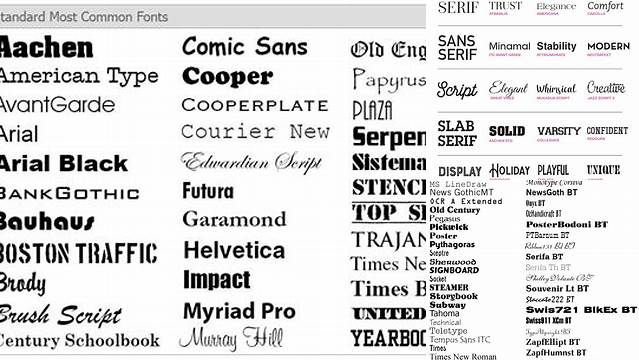
View Text In All Fonts: Your Ultimate Font Guide
1. Understanding Font Basics
Before we get into the nitty-gritty of seeing text in all fonts, let's cover the basics. What exactly is a font? Well, it's a set of glyphs (characters) designed with a specific style. Think of it as a family of letters, numbers, and symbols that share a common visual appearance. Fonts come in various types, including serif, sans-serif, monospace, script, and decorative. Each type has its own distinct characteristics and is suitable for different purposes. For instance, serif fonts, like Times New Roman, are often used in print because they're easy to read in large blocks of text. Sans-serif fonts, like Arial, are commonly used on screens because they tend to appear cleaner. Understanding these basics is crucial for appreciating the nuances of typography and seeing text in all fonts effectively. The history of fonts is rich and dates back to the invention of the printing press. Over the centuries, countless fonts have been created, each with its own unique story and purpose. Today, we have access to thousands of fonts, thanks to digital technology. This abundance of choice can be both a blessing and a curse. It's great to have options, but it can also be overwhelming to choose the right font for your project. That's where understanding the basics comes in handy. Knowing the different types of fonts and their characteristics will help you make informed decisions and see text in all fonts in a way that enhances your message. Ultimately, the goal is to choose a font that is both visually appealing and easy to read. This requires a careful consideration of factors such as the target audience, the medium, and the overall design aesthetic. So, take the time to learn about fonts, experiment with different styles, and develop your own personal taste. You'll be amazed at how much of a difference the right font can make.
5. Web Fonts: Google Fonts and Adobe Fonts
When it comes to web design, seeing text in all fonts requires a different approach. You can't just assume that your users have the same fonts installed on their computers as you do. That's where web fonts come in. Services like Google Fonts and Adobe Fonts (formerly Typekit) allow you to embed fonts directly into your website, ensuring that everyone see text in all fonts the way you intended. Google Fonts is a free service that offers a wide variety of open-source fonts. Adobe Fonts is a subscription-based service that provides access to thousands of high-quality fonts. To use web fonts, you typically add a link to the font's stylesheet in your website's HTML code. This tells the browser to download the font from the web server and use it to render the text on the page. It's important to choose web fonts carefully, as they can impact your website's performance. Large font files can slow down your website's loading time, which can negatively affect the user experience. So, it's best to use only the fonts you need and to optimize them for the web. In addition to Google Fonts and Adobe Fonts, there are also other web font services available, such as Font Squirrel and MyFonts. These services offer a variety of fonts, both free and paid, and they provide tools to help you optimize your fonts for the web. Ultimately, the key to seeing text in all fonts on the web is to use web fonts. This ensures that everyone see text in all fonts the way you intended, regardless of whether they have the font installed on their computer. Just be sure to choose your fonts carefully and optimize them for the web to avoid slowing down your website's loading time.
6. Using CSS to Style Text
CSS (Cascading Style Sheets) is your best friend when you want to see text in all fonts with style on the web. It allows you to control the appearance of your text, including the font family, size, color, and spacing. To specify a font in CSS, you use the font-family property. You can list multiple fonts as fallbacks in case the user's browser doesn't support the first font. For example:
body {
font-family: "Arial", "Helvetica", sans-serif;
}
This tells the browser to use Arial if it's available, otherwise use Helvetica, and if neither is available, use a generic sans-serif font. In addition to font-family, CSS also provides other properties for styling text, such as font-size, font-weight, font-style, and text-decoration. These properties allow you to control the size, weight, style, and decoration of your text, respectively. For example:
h1 {
font-size: 3em;
font-weight: bold;
font-style: italic;
text-decoration: underline;
}
This tells the browser to display all <h1> elements with a font size of 3em, a bold font weight, an italic font style, and an underline decoration. CSS also allows you to use web fonts, as discussed in the previous section. To use a web font in CSS, you first need to link to the font's stylesheet in your website's HTML code. Then, you can specify the font in your CSS using the font-family property. For example:
body {
font-family: "Open Sans", sans-serif;
}
This tells the browser to use the Open Sans font for all text on the page. Ultimately, CSS is an essential tool for seeing text in all fonts with style on the web. It allows you to control the appearance of your text and ensure that it looks the way you intended, regardless of the user's browser or operating system. Just be sure to use CSS properly and follow best practices to avoid creating a mess of code.
7. Troubleshooting Font Display Issues
Sometimes, even when you think you've done everything right, you might still encounter issues when trying to see text in all fonts. Common problems include fonts not displaying correctly, fonts appearing pixelated, or fonts not rendering at all. The first step in troubleshooting font display issues is to make sure that the font is properly installed on your system. If you're using a web font, make sure that the link to the font's stylesheet is correct and that the font file is accessible. If the font is installed correctly, the next step is to check your CSS code. Make sure that you're using the correct font-family name and that there are no typos or syntax errors in your code. It's also worth checking for font conflicts. Sometimes, two or more fonts can conflict with each other, causing display issues. To resolve font conflicts, try deactivating one of the conflicting fonts or changing the order in which they're listed in your CSS code. Another common cause of font display issues is caching. Sometimes, your browser or operating system may cache an old version of the font file, causing the font to display incorrectly. To clear the cache, try restarting your browser or clearing your browser's cache. If you're still having trouble seeing text in all fonts, it's worth checking your system's font settings. Make sure that your system is configured to use the correct font rendering settings and that there are no font smoothing or anti-aliasing issues. Ultimately, troubleshooting font display issues can be a frustrating process, but it's important to be patient and methodical. By following these steps, you should be able to identify and resolve most font display issues and see text in all fonts the way you intended.
8. Font Licensing and Usage Rights
Before you go wild seeing text in all fonts everywhere, it's crucial to understand font licensing and usage rights. Fonts are intellectual property, and they're typically protected by copyright. This means that you need a license to use a font legally. Font licenses vary depending on the font foundry and the type of usage. Some licenses are free for personal use but require a fee for commercial use. Other licenses allow you to use the font for any purpose, but they may restrict the number of users or the number of devices on which the font can be installed. It's important to read the font license carefully before using a font to make sure that you're complying with the terms of the license. Using a font without a proper license can result in legal trouble, including fines and lawsuits. In addition to copyright, fonts may also be protected by trademarks. A trademark is a symbol, design, or phrase legally registered to represent a company or product. If a font is trademarked, you may need to obtain permission from the trademark owner before using the font in a way that could infringe on the trademark. Ultimately, understanding font licensing and usage rights is essential for seeing text in all fonts legally and ethically. Always read the font license carefully before using a font, and make sure that you're complying with the terms of the license. If you're unsure about the terms of a font license, it's best to contact the font foundry or a legal professional for clarification.
9. Font Pairing: Tips and Best Practices
Choosing the right font is important, but seeing text in all fonts beautifully often means pairing fonts effectively. Font pairing is the art of combining two or more fonts that complement each other and create a visually appealing design. A good font pairing can enhance the readability of your text, create a sense of harmony and balance, and convey the right mood and message. There are many different approaches to font pairing, but some common tips and best practices include: Use a serif font for headings and a sans-serif font for body text, or vice versa. This creates a visual contrast that can make your text more readable. Choose fonts that have similar x-heights. The x-height is the height of the lowercase letter "x" in a font. Fonts with similar x-heights tend to look more harmonious when paired together. Use fonts from the same font family. Font families often include a variety of weights and styles that can be used together to create a cohesive design. Don't be afraid to experiment with different font pairings, but always make sure that the fonts you choose complement each other and create a visually appealing design. Ultimately, font pairing is a subjective process, but by following these tips and best practices, you can see text in all fonts in a way that is both visually appealing and easy to read. Just remember to experiment, have fun, and trust your instincts.
10. Accessibility Considerations for Fonts
When you see text in all fonts, it's super important to think about accessibility. Not everyone experiences text the same way, and choosing the right fonts and styles can make a big difference for people with visual impairments or reading difficulties. One key consideration is font size. Make sure your text is large enough to be easily readable, especially on smaller screens. You should also provide options for users to adjust the font size to their preferences. Another important factor is contrast. Ensure that there is sufficient contrast between the text color and the background color. This is especially important for people with low vision. You should also avoid using fonts that are too thin or too decorative, as these can be difficult to read. Choose fonts that are clear, simple, and easy to distinguish. In addition to font size and contrast, you should also consider the spacing between letters and lines. Adequate spacing can improve readability and reduce eye strain. Ultimately, accessibility is a crucial consideration for seeing text in all fonts. By choosing the right fonts and styles, you can make your text more accessible to everyone, regardless of their abilities or disabilities. So, take the time to think about accessibility when you're choosing fonts, and make sure that your text is easy to read for everyone.
11. Advanced Typography Techniques
Ready to take your typography skills to the next level and truly see text in all fonts with finesse? Let's dive into some advanced techniques! We're talking about things like kerning, tracking, and leading. Kerning is the adjustment of space between individual letters to improve readability and visual appeal. Tracking is the uniform adjustment of space between all letters in a word or line of text. Leading (pronounced "led-ding") is the vertical space between lines of text. Mastering these techniques can help you create typography that is both beautiful and functional. For example, you can use kerning to tighten up the space between letters that are too far apart, or you can use tracking to create a more open and airy feel. You can also use leading to improve readability by adding more space between lines of text. In addition to kerning, tracking, and leading, there are also other advanced typography techniques that you can explore, such as ligatures, swashes, and alternate characters. Ligatures are special characters that combine two or more letters into a single glyph. Swashes are decorative flourishes that can be added to letters. Alternate characters are different versions of the same letter that can be used to create a more unique and personalized look. Ultimately, advanced typography techniques can help you see text in all fonts with greater control and precision. By mastering these techniques, you can create typography that is both visually stunning and highly readable.
12. The Psychology of Fonts: Choosing the Right Mood
The fonts you use can evoke different emotions and associations. Serif fonts often feel traditional and authoritative, while sans-serif fonts can feel modern and clean. Script fonts can convey elegance and creativity, while display fonts can be bold and attention-grabbing. When choosing fonts, think about the message you want to convey and the emotions you want to evoke. For example, if you're designing a website for a law firm, you might choose a serif font to convey a sense of tradition and authority. On the other hand, if you're designing a website for a tech startup, you might choose a sans-serif font to convey a sense of modernity and innovation. It's also important to consider the target audience for your design. Different audiences may have different associations with different fonts. For example, older audiences may be more familiar with serif fonts, while younger audiences may be more familiar with sans-serif fonts. Ultimately, the psychology of fonts is an important consideration for seeing text in all fonts effectively. By choosing fonts that evoke the right emotions and associations, you can create designs that are both visually appealing and emotionally resonant.
13. Font Size and Readability
When aiming to see text in all fonts comfortably, font size is a crucial factor. Choosing the right font size can significantly impact readability and user experience. Too small, and readers will strain their eyes; too large, and the text becomes overwhelming. The ideal font size depends on several factors, including the font itself, the viewing environment, and the target audience. As a general rule, body text should be at least 16 pixels for online reading. Headings should be larger, but not so large that they become distracting. It's also important to consider the line height and letter spacing. Adequate line height and letter spacing can improve readability and reduce eye strain. Ultimately, font size and readability are essential considerations for seeing text in all fonts effectively. By choosing the right font size and spacing, you can create text that is both visually appealing and easy to read.
14. Font Weight and Emphasis
Font weight refers to the thickness of a font. Common font weights include light, regular, bold, and extra bold. Font weight can be used to create emphasis and hierarchy in your text. For example, you can use bold font weight to highlight important keywords or phrases. You can also use different font weights to create a visual contrast between headings and body text. When choosing font weights, it's important to consider the overall design aesthetic. Too many different font weights can create a cluttered and disorganized look. It's best to stick to a limited number of font weights and use them consistently throughout your design. Ultimately, font weight and emphasis are important tools for seeing text in all fonts effectively. By using font weight strategically, you can create text that is both visually appealing and easy to understand.
15. Line Height and Spacing
Line height, also known as leading, is the vertical space between lines of text. Adequate line height is essential for readability. Too little line height can make text feel cramped and difficult to read. Too much line height can make text feel disjointed and disconnected. The ideal line height depends on the font size and the length of the lines. As a general rule, line height should be about 1.5 times the font size. For example, if your font size is 16 pixels, your line height should be about 24 pixels. In addition to line height, letter spacing is also important for readability. Letter spacing refers to the space between individual letters in a word or line of text. Adequate letter spacing can improve readability and reduce eye strain. Too little letter spacing can make text feel crowded and difficult to read. Too much letter spacing can make text feel disjointed and disconnected. Ultimately, line height and spacing are essential considerations for seeing text in all fonts comfortably. By choosing the right line height and spacing, you can create text that is both visually appealing and easy to read.
16. Kerning and Tracking Adjustments
Kerning and tracking are advanced typography techniques that can be used to fine-tune the spacing between letters. Kerning is the adjustment of space between individual letters to improve readability and visual appeal. Tracking is the uniform adjustment of space between all letters in a word or line of text. Kerning is typically used to adjust the spacing between pairs of letters that look too close together or too far apart. For example, you might use kerning to tighten up the space between the letters "A" and "V" or to widen the space between the letters "T" and "o". Tracking is typically used to adjust the overall density of text. For example, you might use tracking to make a block of text feel more open and airy or to make it feel more dense and compact. Mastering kerning and tracking can take time and practice, but it's worth the effort if you want to see text in all fonts with professional-level precision.
17. Using Color with Fonts
Color plays a vital role in how we see text in all fonts. The right color combinations can enhance readability, create visual interest, and convey specific emotions. When choosing colors for your fonts, it's important to consider the background color and the overall design aesthetic. High contrast between the text color and the background color is essential for readability, especially for people with visual impairments. Black text on a white background is a classic combination that provides excellent contrast. However, you can also use other color combinations, as long as they provide sufficient contrast. When using color with fonts, it's also important to consider the psychology of color. Different colors can evoke different emotions and associations. For example, blue is often associated with trust and reliability, while red is often associated with excitement and energy. Ultimately, using color with fonts is an art and a science. By understanding the principles of color theory and the psychology of color, you can see text in all fonts in a way that is both visually appealing and emotionally resonant.
18. Font Effects: Shadows and Outlines
Font effects like shadows and outlines can add visual interest and depth to your text. However, it's important to use these effects sparingly and tastefully. Too many font effects can make your text look cluttered and unprofessional. Shadows can be used to create a sense of depth and dimension. Outlines can be used to make your text stand out from the background. When using font effects, it's important to consider the overall design aesthetic. Font effects should complement the design, not distract from it. Ultimately, font effects are a powerful tool for seeing text in all fonts with creativity. By using font effects judiciously, you can create text that is both visually appealing and memorable.
19. Creating Custom Fonts
Feeling adventurous? Why not try creating your own custom fonts? With the right software and a bit of creativity, you can design fonts that are truly unique and personalized. There are many different font creation tools available, ranging from free online editors to professional-grade desktop applications. Creating a custom font can be a time-consuming process, but it can also be a very rewarding experience. You'll need to design each letter, number, and symbol individually, and then you'll need to test your font to make sure that it's readable and functional. Once you've created your custom font, you can use it in your designs and share it with others. Ultimately, creating custom fonts is a great way to see text in all fonts with ultimate personalization. By designing your own fonts, you can create typography that is truly unique and expressive.
20. Font Resources and Inspiration
Need some inspiration for your next typography project? There are tons of great font resources available online and in print. Websites like FontPair, Typewolf, and Fonts in Use showcase excellent font pairings and typography examples. You can also find inspiration in books, magazines, and other printed materials. When browsing font resources, pay attention to the details. Notice how different fonts are used in different contexts, and try to understand why certain fonts work well together. You can also experiment with different font pairings and typography techniques to develop your own personal style. Ultimately, font resources and inspiration are essential for seeing text in all fonts with creativity and innovation. By exploring different font resources, you can expand your knowledge of typography and develop your own unique style.
21. Font Selection for Logos and Branding
When it comes to logos and branding, font selection is critical. The font you choose will represent your brand and convey its personality to the world. A well-chosen font can create a strong and memorable brand identity, while a poorly chosen font can damage your brand's reputation. When selecting fonts for logos and branding, it's important to consider the brand's values, target audience, and overall design aesthetic. The font should be consistent with the brand's message and appeal to its target audience. It should also be visually appealing and easy to read. Ultimately, font selection for logos and branding is a strategic decision that can have a significant impact on your brand's success. By choosing the right fonts, you can see text in all fonts in a way that strengthens your brand and resonates with your target audience.
22. Typography in Print vs. Digital Media
Typography considerations differ between print and digital media. In print, you have more control over the final output, as the fonts will be rendered exactly as you intended. However, in digital media, fonts may be rendered differently depending on the user's browser, operating system, and device. When designing for print, you can use a wider variety of fonts, including more decorative and ornate fonts. However, when designing for digital media, it's important to choose fonts that are web-safe and render well on different screens. It's also important to optimize your fonts for the web to ensure that they load quickly and don't slow down your website. Ultimately, typography in print vs. digital media requires different approaches. By understanding the differences between the two media, you can see text in all fonts in a way that is appropriate for each medium.
23. The Future of Fonts: Variable Fonts
Variable fonts are a new font technology that allows for greater flexibility and control over font design. Unlike traditional fonts, which have a fixed set of styles, variable fonts allow you to adjust various font properties, such as weight, width, and slant, along a continuous range. This means that you can create a wide variety of font styles from a single font file, which can save space and improve performance. Variable fonts are still a relatively new technology, but they have the potential to revolutionize the way we see text in all fonts. They offer greater flexibility and control over typography, and they can help to create more dynamic and engaging designs.
24. Unicode and Character Sets
Unicode is a character encoding standard that assigns a unique number to every character in every language. This allows computers to display text in any language, regardless of the user's operating system or software. Character sets are collections of characters that are used to represent text. Common character sets include ASCII, Latin-1, and UTF-8. When working with fonts, it's important to understand Unicode and character sets. You need to make sure that your font supports the characters that you want to display, and you need to use the correct character encoding to ensure that your text is displayed correctly. Ultimately, Unicode and character sets are essential for seeing text in all fonts correctly. By understanding these concepts, you can ensure that your text is displayed accurately and consistently across different platforms.
25. Font Fallbacks: Ensuring Readability
Font fallbacks are backup fonts that are used when the user's browser or operating system doesn't support the primary font. When specifying fonts in CSS, it's important to include font fallbacks to ensure that your text is always readable. Font fallbacks should be similar to the primary font in terms of style and readability. For example, if your primary font is a serif font, your font fallbacks should also be serif fonts. It's also a good idea to include a generic font family, such as serif, sans-serif, or monospace, as the last font in your font stack. This will ensure that your text is always displayed, even if none of the specified fonts are available. Ultimately, font fallbacks are essential for seeing text in all fonts reliably. By including font fallbacks in your CSS, you can ensure that your text is always readable, regardless of the user's browser or operating system.
26. Text Rendering Engines and Technologies
Text rendering engines are software components that are responsible for displaying text on the screen. Different operating systems and browsers use different text rendering engines. Some common text rendering engines include: DirectWrite (Windows), Core Text (macOS), and FreeType (Linux). The text rendering engine can affect the appearance of fonts, especially at small sizes. Some text rendering engines may use font smoothing or anti-aliasing to make fonts look smoother, while others may not. When designing for different platforms, it's important to be aware of the differences in text rendering engines. You may need to adjust your font choices or typography techniques to ensure that your text looks good on all platforms. Ultimately, text rendering engines are an important factor in seeing text in all fonts consistently. By understanding how different text rendering engines work, you can create typography that looks good on all platforms.
27. Font Embedding Techniques
Font embedding is the process of including font files within a document or web page. This ensures that the fonts will be displayed correctly, even if the user doesn't have the fonts installed on their computer. There are several different font embedding techniques available, including: CSS @font-face rule, OpenType embedding, and WOFF/WOFF2. The CSS @font-face rule is the most common way to embed fonts on the web. It allows you to specify the font file, font family, and other font properties in your CSS code. OpenType embedding is a technology that allows you to embed fonts directly into documents, such as PDF files. WOFF and WOFF2 are web font formats that are specifically designed for font embedding. They offer better compression and performance than traditional font formats. Ultimately, font embedding techniques are essential for seeing text in all fonts reliably. By embedding fonts in your documents and web pages, you can ensure that your text will be displayed correctly, regardless of the user's computer or device.
28. Font Security Considerations
Font security is an important consideration when working with fonts. Fonts can contain malicious code that can compromise the security of your computer. To protect yourself from font-related security threats, it's important to only use fonts from trusted sources. You should also keep your font software up to date, and you should scan your fonts for malware before using them. Some operating systems and browsers have built-in font security features that can help to protect you from font-related security threats. These features may include font sandboxing, font validation, and font isolation. Ultimately, font security is an important aspect of seeing text in all fonts safely. By taking precautions to protect yourself from font-related security threats, you can ensure that your computer remains secure.
29. Font File Optimization for Web Performance
Font file optimization is the process of reducing the size of font files to improve web performance. Large font files can slow down your website and negatively impact the user experience. To optimize font files for web performance, you can use a variety of techniques, including: Font subsetting, Font compression, and Font caching. Font subsetting is the process of removing unused characters from a font file. This can significantly reduce the size of the font file, especially for fonts that contain a large number of characters. Font compression is the process of compressing font files to reduce their size. There are several different font compression tools available, such as WOFF and WOFF2. Font caching is the process of storing font files in the browser's cache. This allows the browser to load the fonts more quickly on subsequent visits. Ultimately, font file optimization is essential for seeing text in all fonts without compromising web performance. By optimizing your font files, you can improve your website's loading time and provide a better user experience.
30. Resources for Learning More About Typography
Want to become a typography master? There are plenty of resources available to help you learn more about this fascinating subject. Online courses, books, blogs, and communities can provide you with the knowledge and skills you need to excel in typography. Some popular resources include: Typography books: The Elements of Typographic Style by Robert Bringhurst, Thinking with Type by Ellen Lupton, and Stop Stealing Sheep & find out how type works by Erik Spiekermann. Online typography courses: Coursera, Udemy, and Skillshare offer a variety of typography courses for all skill levels. Typography blogs: I Love Typography, Fonts.com, and Typewolf are great resources for staying up-to-date on the latest typography trends and techniques. Typography communities: Dribbble, Behance, and Reddit are great places to connect with other designers and typographers and share your work. Ultimately, resources for learning more about typography are abundant. By taking advantage of these resources, you can see text in all fonts with greater knowledge and skill, and you can create typography that is both beautiful and effective.